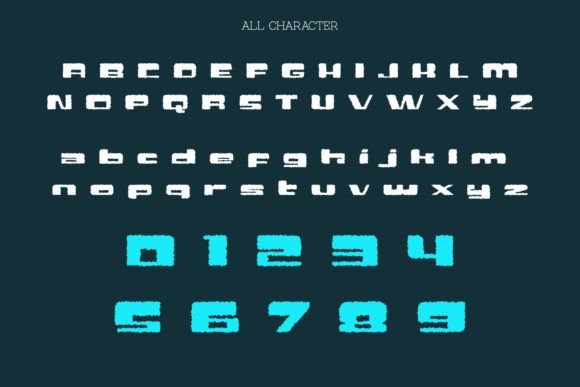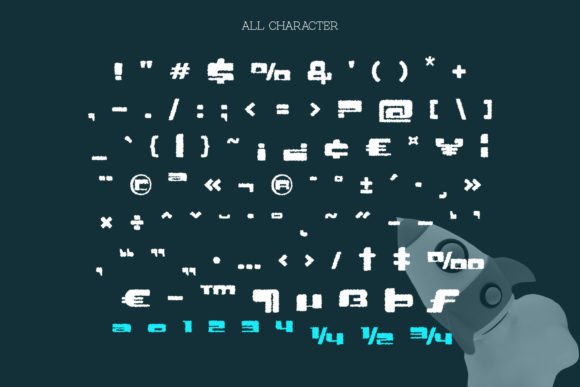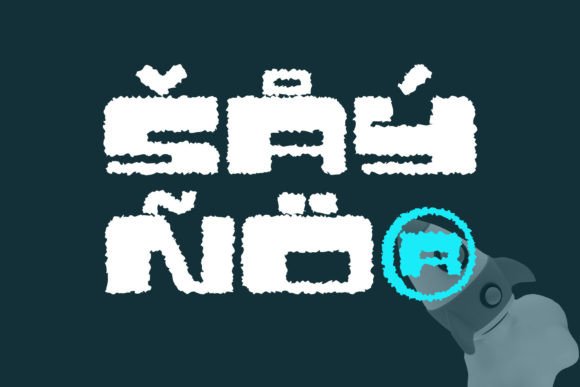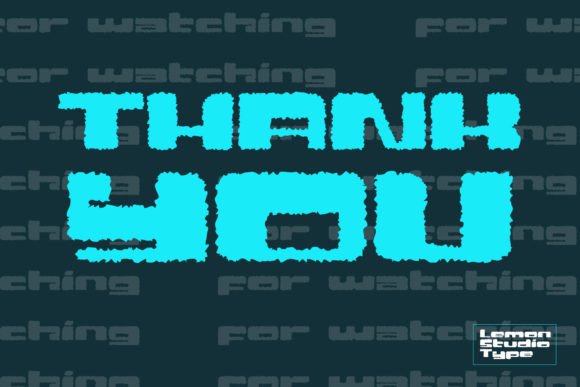
Introduction to Rightov Font
As a designer, have you ever felt stuck in front of your computer, searching for the perfect font to bring your creative project to life? You’ve browsed through countless options, but nothing seems to capture the essence of your idea. That’s when I discovered the Rightov Font – a game-changing display font that revolutionized my design process.
The moment I laid eyes on Rightov Font, I knew it was something special. Its rough texture and futuristic design gave me the perfect canvas to experiment with. Whether I’m working on a high-quality graphic design or a free download project, Rightov Font has become my go-to design resource. With its transparent background, I can easily overlay it on any image or color, giving my designs a unique and edgy touch.
What I love most about Rightov Font is its versatility. It’s perfect for designers who want to add a strong and daring typography to their work. Whether you’re creating a logo, social media graphics, or a brochure, Rightov Font is an excellent choice. Its high-quality design ensures that your creative project stands out from the crowd, making it an invaluable asset for any designer.
Key Features of Rightov Font
- High-quality design for creative projects, ideal for designers and artists.
- Transparent background, allowing for seamless integration with various design elements.
- Available in multiple sizes, including small caps, and various resolutions for optimal display.
- Unique, hand-drawn style with intricate details, making it perfect for artistic and creative projects.
Honest Review: Rightov Font
I recently had the chance to try out the Rightov Font and I must say, I was pleasantly surprised. As a designer, I’m always on the lookout for high-quality fonts that can elevate my creative projects.
What works well: ✨ The Rightov Font has a unique, modern design that’s perfect for any creative project. The font is free to download, which is a major bonus for designers working on a budget. The transparent background makes it easy to use in any design setting.
- Perfect for modern designs and creative projects
However, there are some limitations: ⚠️ The font only comes in a single weight, which may not be suitable for all design needs. Additionally, the font may not be suitable for small text sizes, as it can become difficult to read.
Overall, I’m impressed with the Rightov Font. While it has some limitations, its unique design and high-quality make it a valuable addition to any designer’s toolkit. If you’re working on a modern design project, I’d definitely recommend giving it a try.
Tips for Getting the Most Out of Rightov Font
For the best results, use the Rightov Font on a transparent background to achieve a high-quality, clean look. This font is perfect for creative projects, such as logos, posters, and social media graphics.
The Rightov Font is ideal for design resources, including business cards, flyers, and brochures. Its unique design makes it perfect for creating eye-catching and memorable designs.